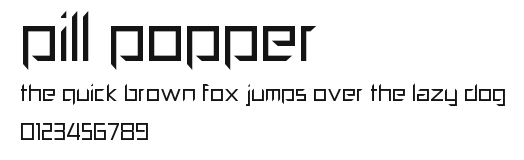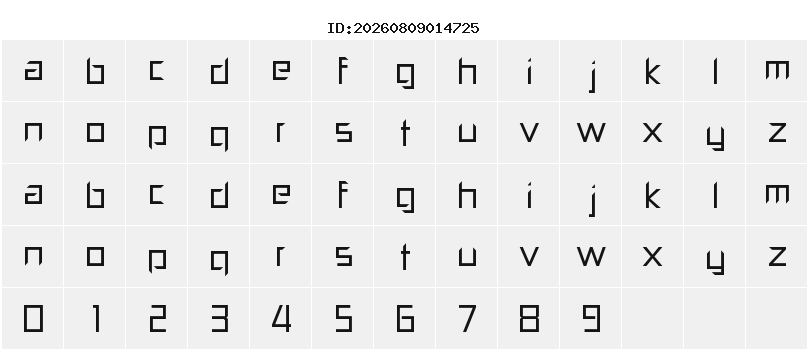
• Font Name: Pill Popper
• Full Font Name: Pill Popper
• Version: Version 1.5, April 2002
• Designer: Russ - Paul Russen 2002
• Manufacturer: Russ
• Description: Flyers/Posters/CD Covers/Vinyl Sleeves
About Pill Popper.ttf
Pill Popper.ttf is a modern, elegant sans-serif font designed for ultimate readability and visual harmony. Perfect for branding, headlines, web design, and print materials.